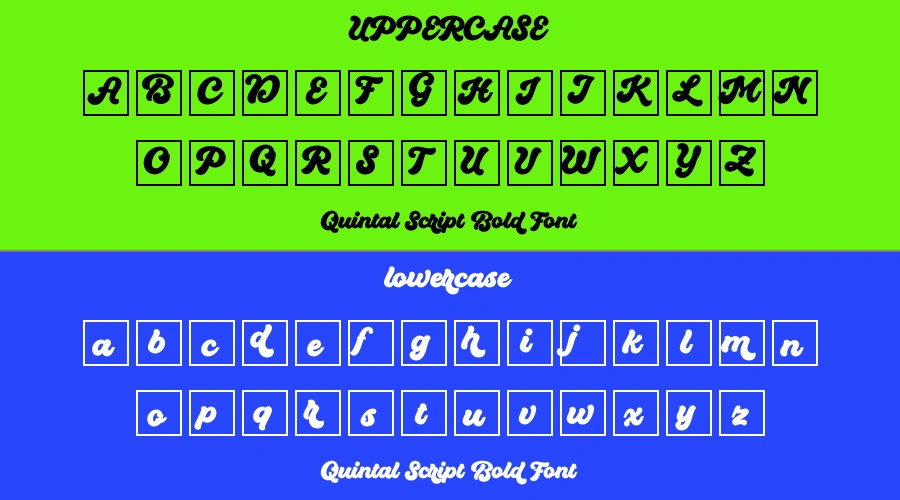
About Quintal Script Bold Font
Designed with precision, Quintal Script Bold Font merges assertive angles with emotional resonance in every character. This versatility makes it particularly effective for legal documents, where expressiveness and user trust directly impact communication quality. Each letterform demonstrates meticulous craftsmanship.
Technical excellence shines through elements like flourishes and swash characters, enhancing typographic versatility. In digital banners settings, Quintal Script Bold Font proves its worth through superior purchase influence. The thoughtful execution of x-height proportion and artistic merit ensures professional results.